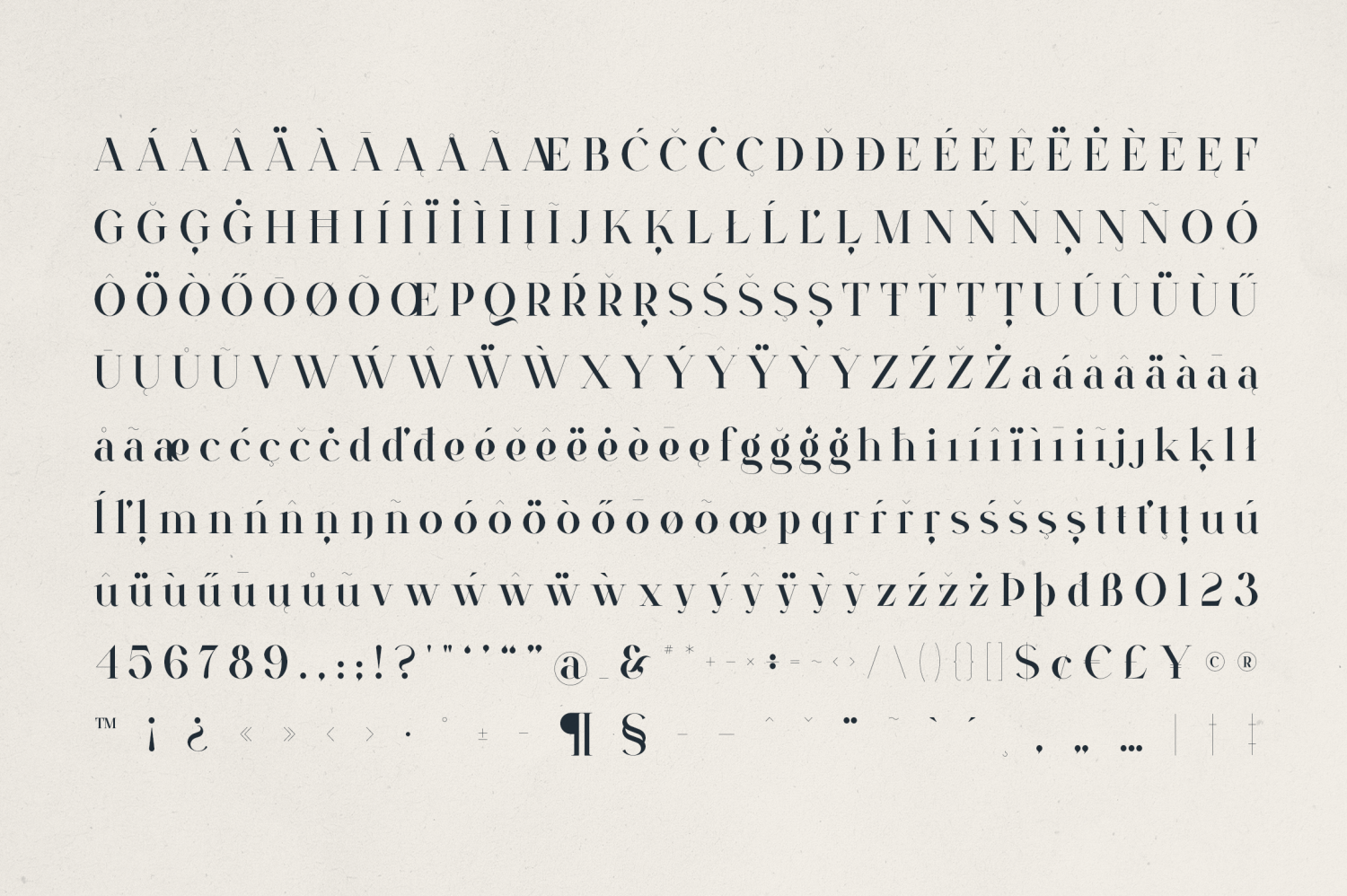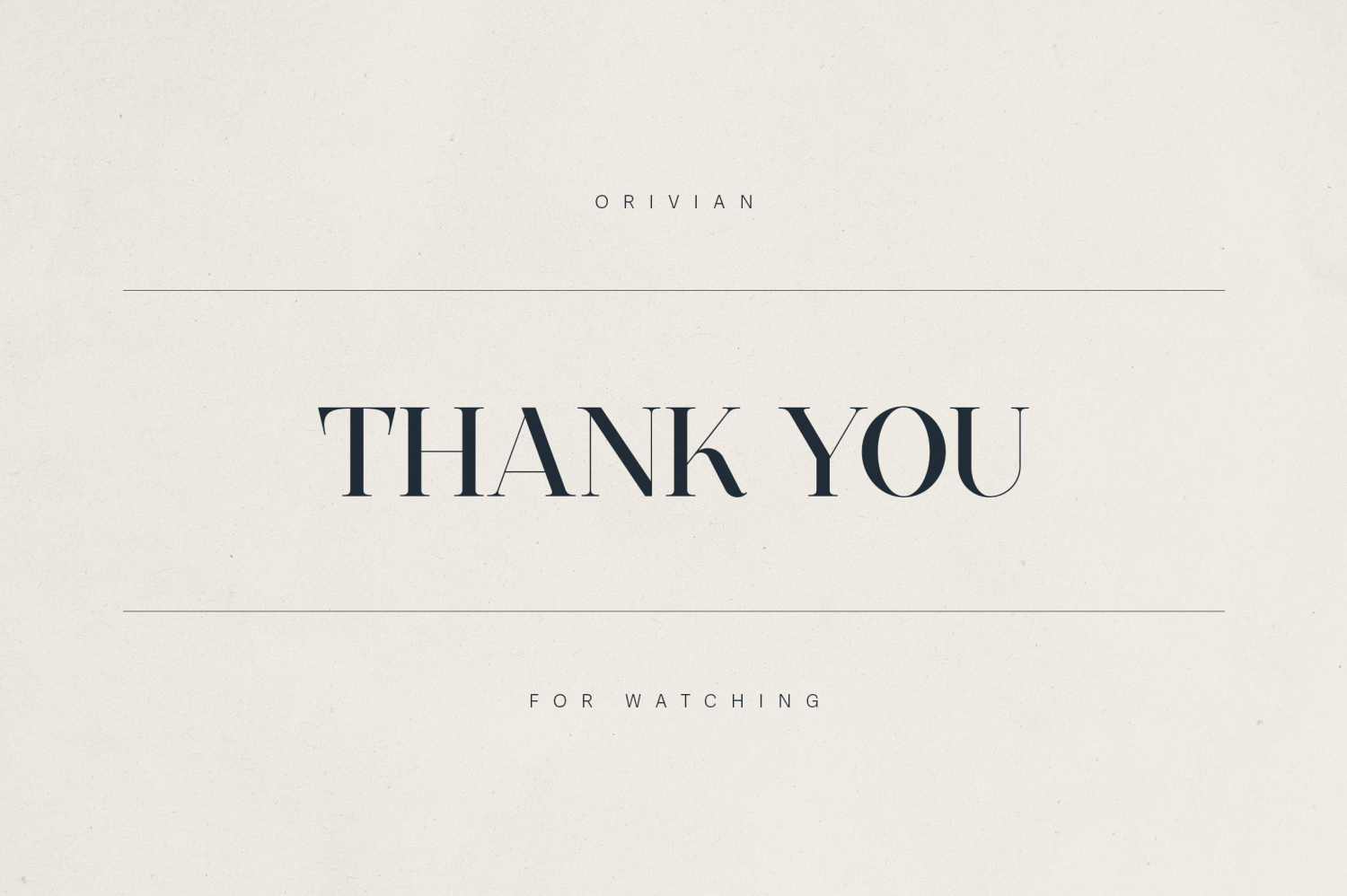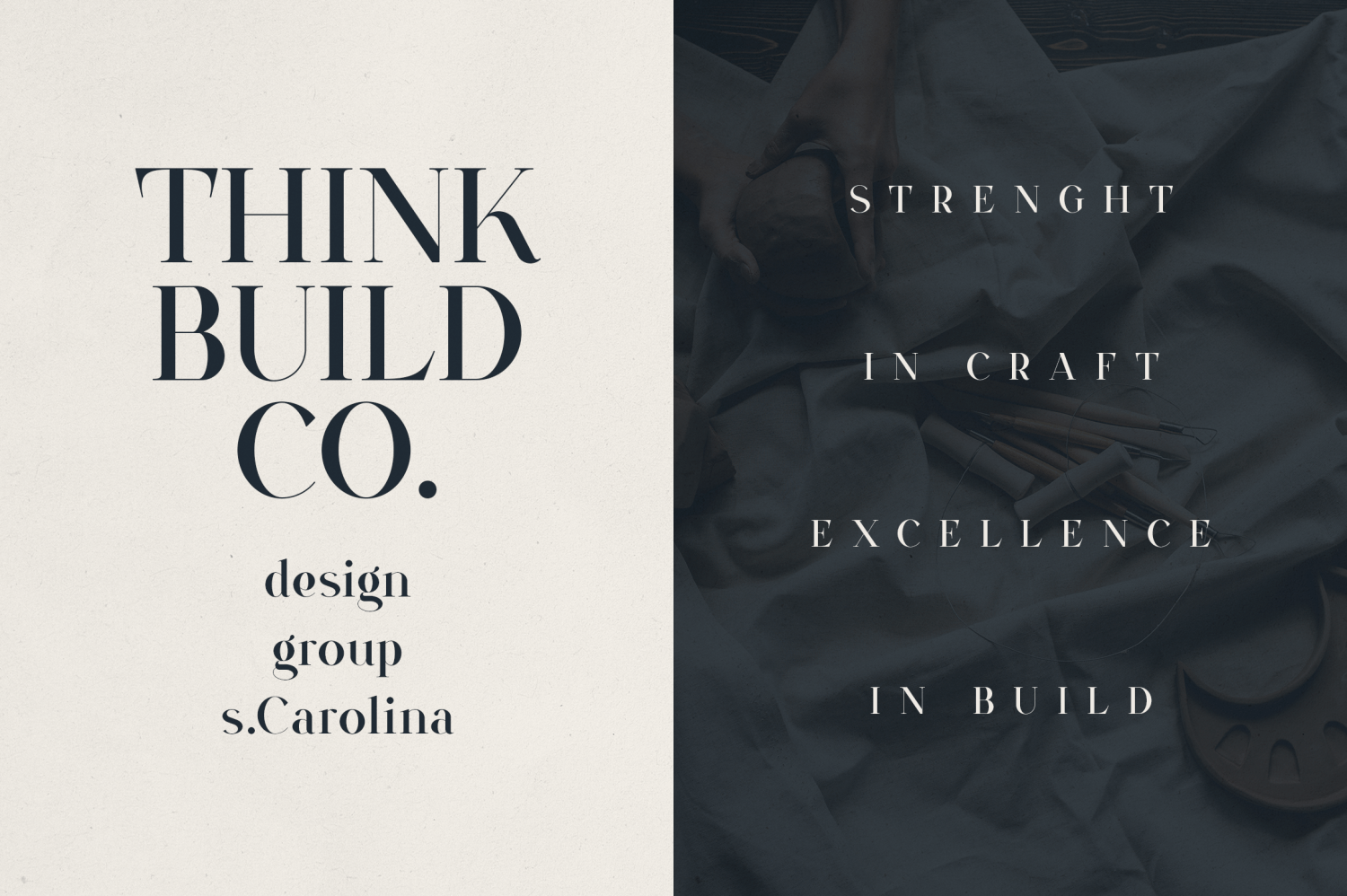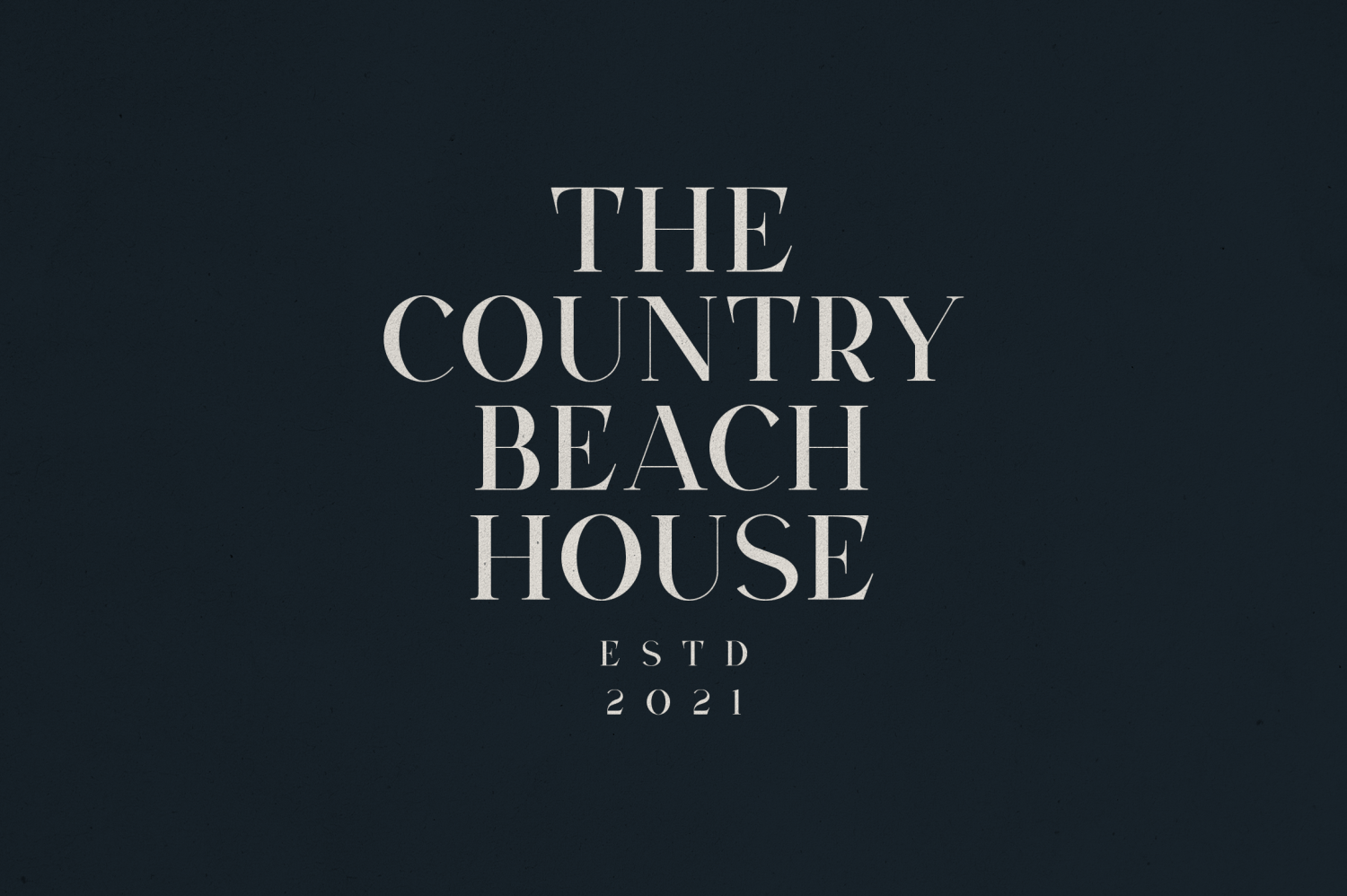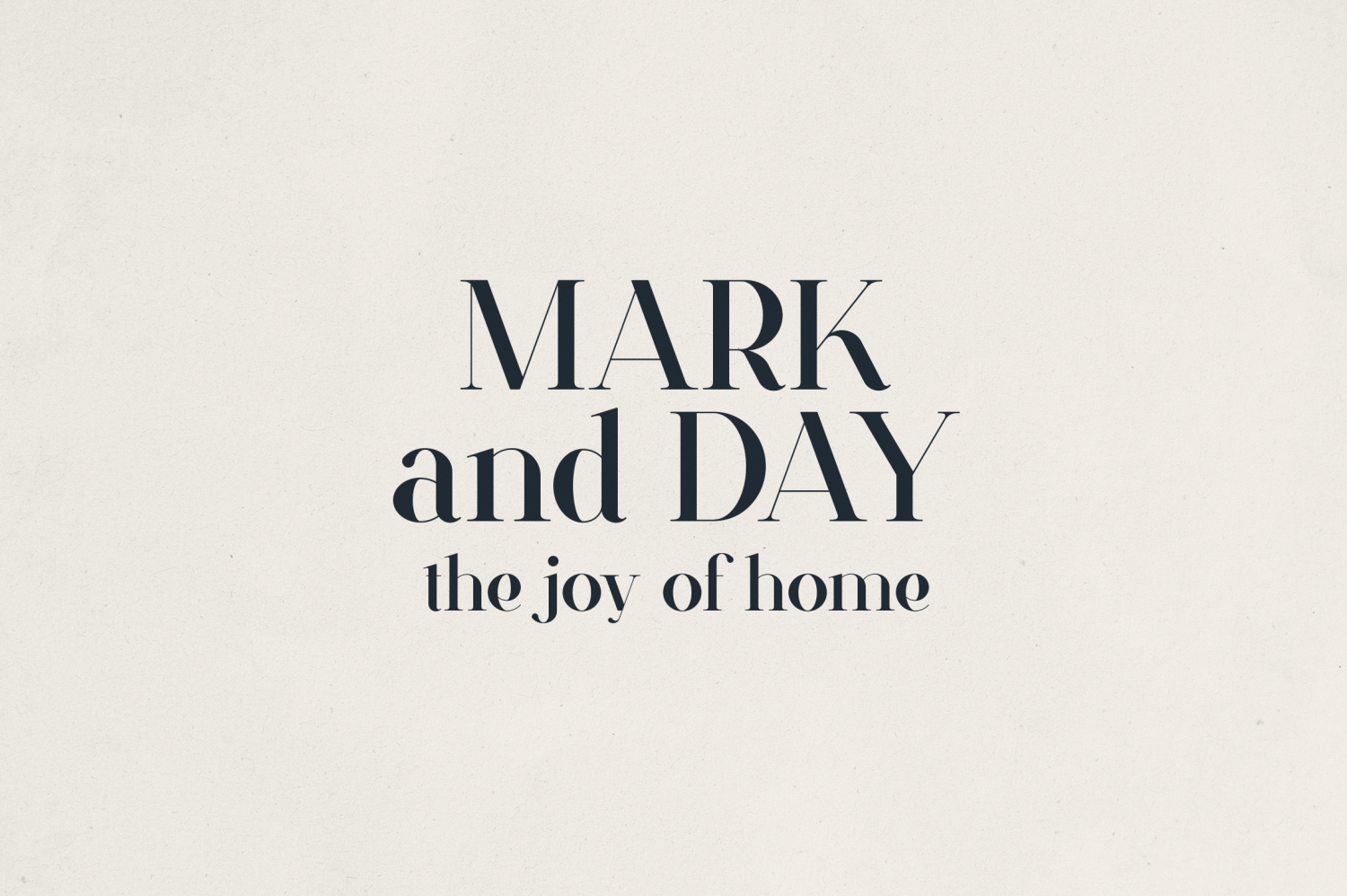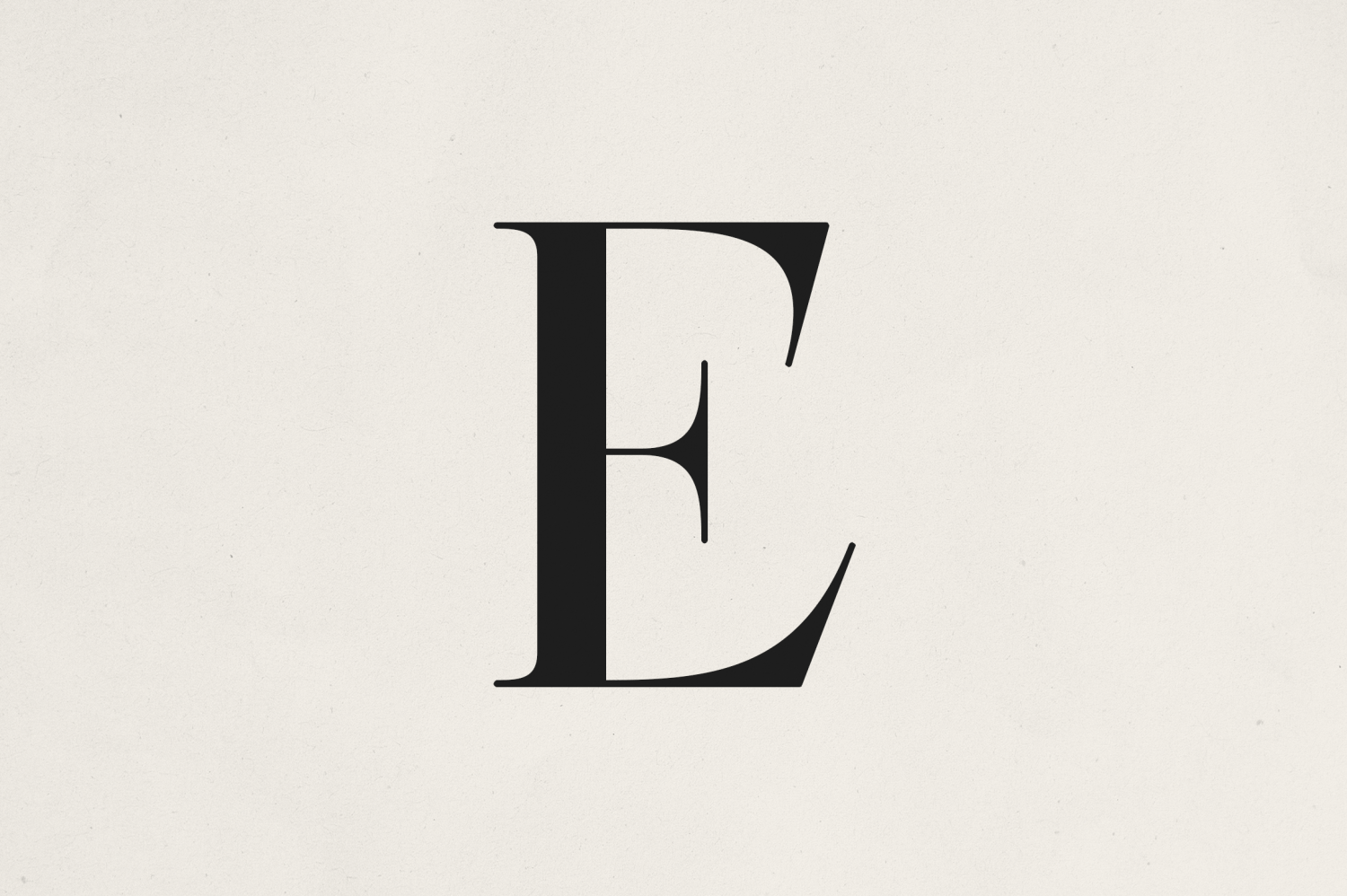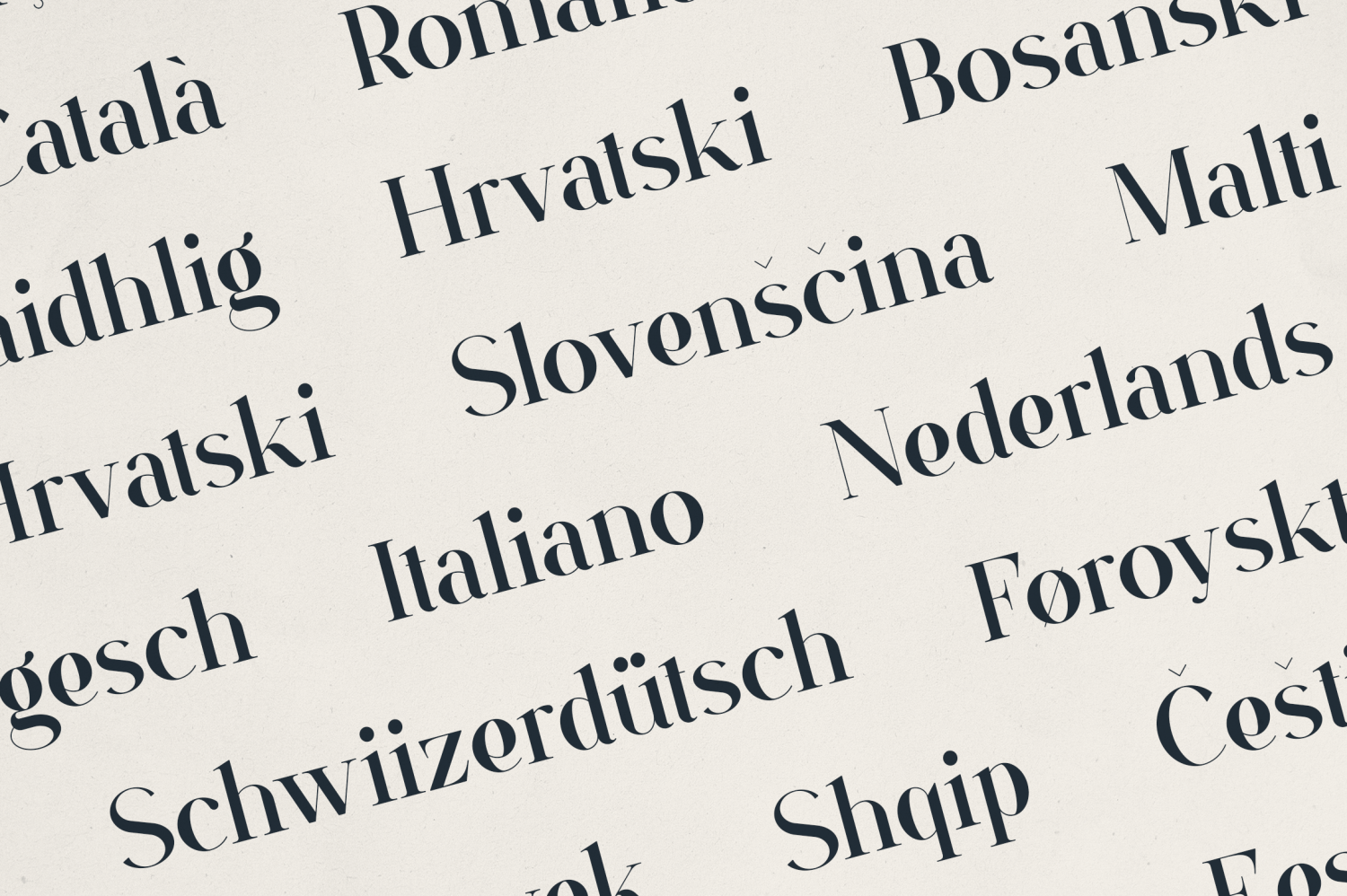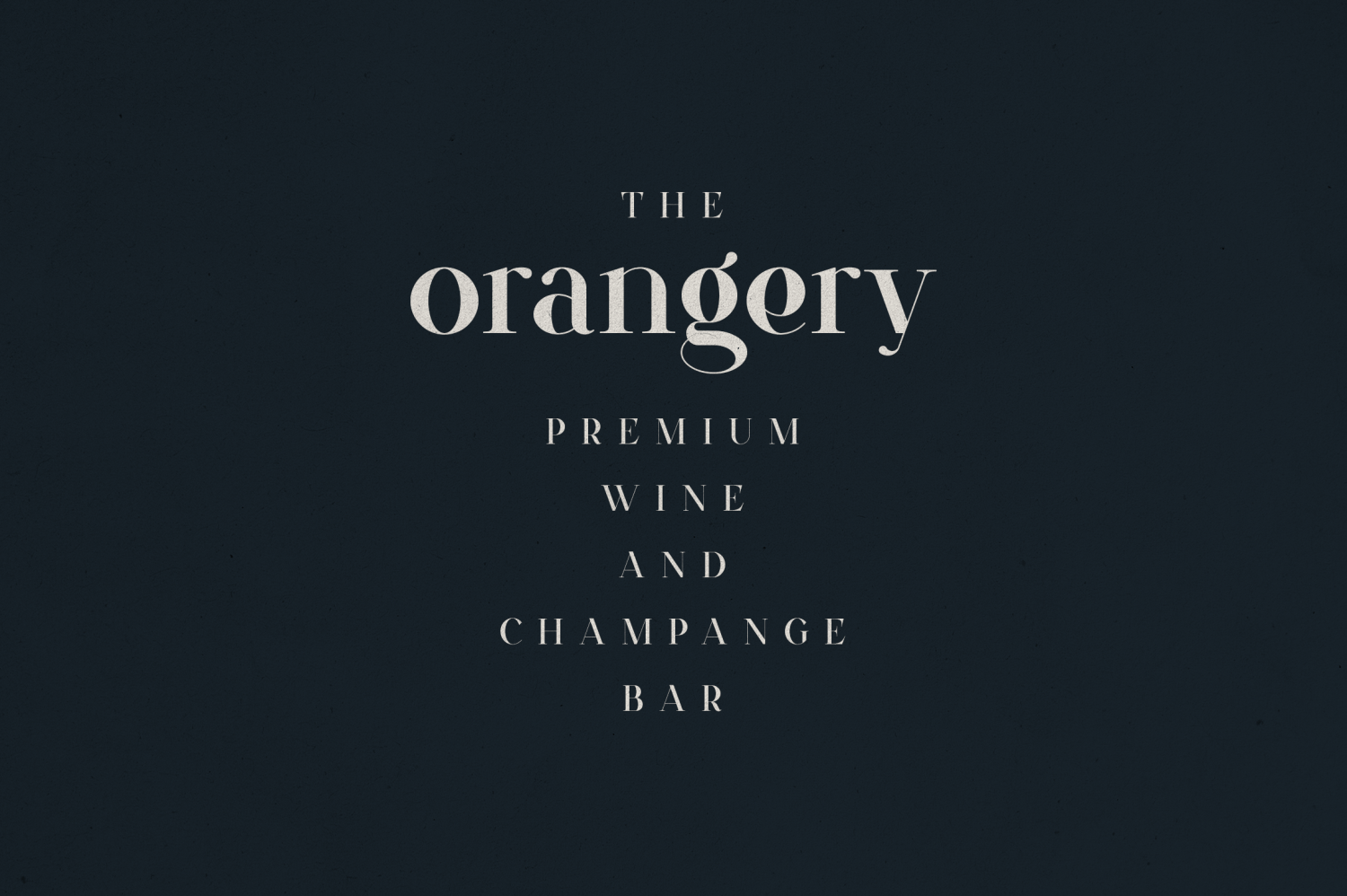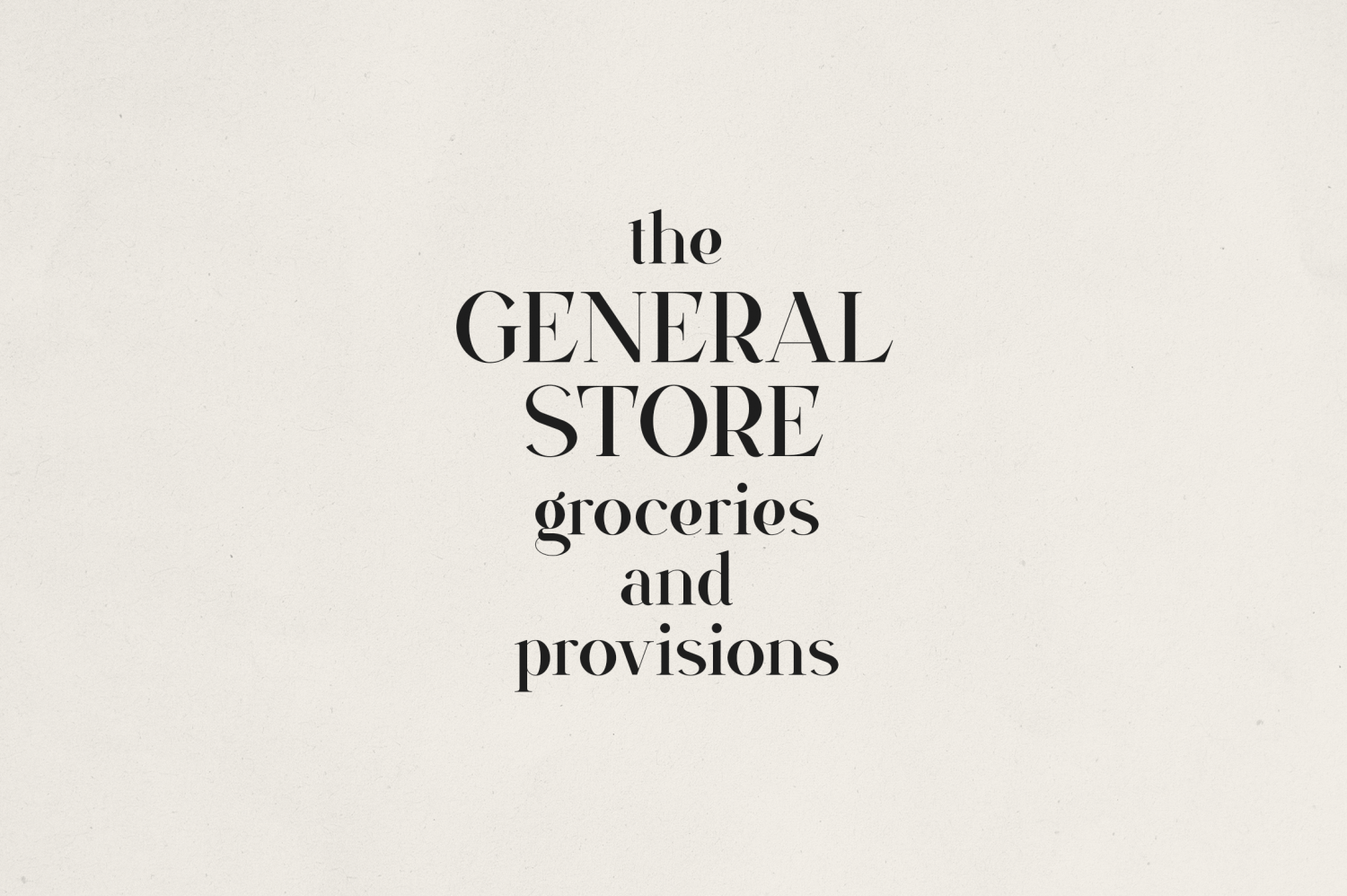
Orivian
Orivian – A Refined High-Contrast Serif Font
Orivian is a sophisticated high-contrast serif font that exudes timeless elegance and contemporary finesse. With its gracefully sharp serifs, refined curves, and confident vertical stress, Orivian seamlessly blends modern minimalism with classic typographic tradition.
Crafted for premium branding, editorial design, packaging, and lifestyle aesthetics, Orivian is ideal for designers seeking a typeface that delivers both impact and charm. Its tall letterforms and striking contrast make it perfect for headlines, logos, and upscale identity systems—while the subtle curves offer a warm, humanist touch.
Features:
• Elegant high-contrast strokes with sharp, sculptural serifs
• Carefully balanced letterforms for both bold display and refined body text
• Multilingual support with extensive Latin character set
• Uppercase, lowercase, numerals, punctuation, and symbols
• Ideal for branding, fashion editorials, hospitality, and premium packaging
Whether you're designing for a boutique hotel, luxury wine label, or a modern lifestyle magazine, Orivian will elevate your visual language with grace and confidence.